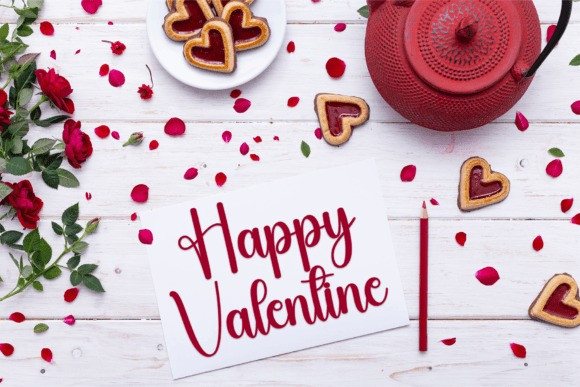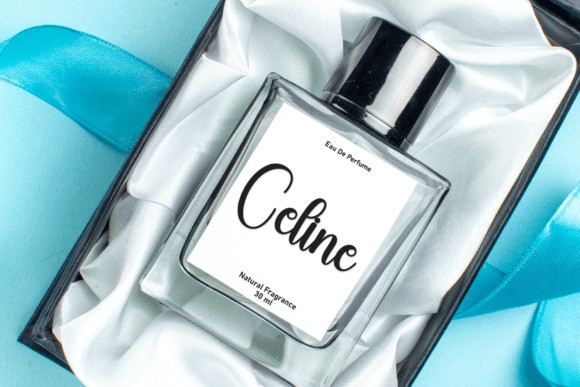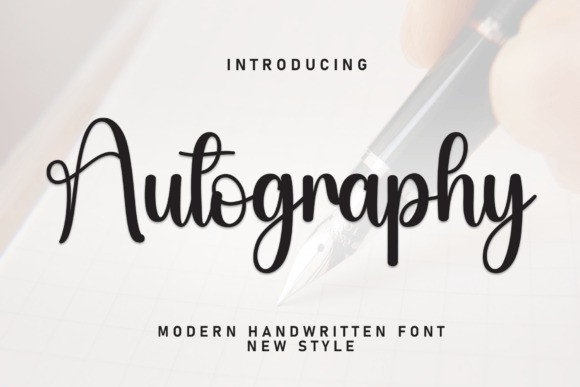
Autography Handwritten Typeface
Autography Handwritten Typeface is a contemporary handwritten font that brings a touch of modern style to your projects. With its casual and free-flowing vibe, this font adds a personal and friendly feel to any text. Perfect for giving your designs a laid-back, yet polished look. Autography is an easy choice for a fresh and modern approach to handwritten typography.